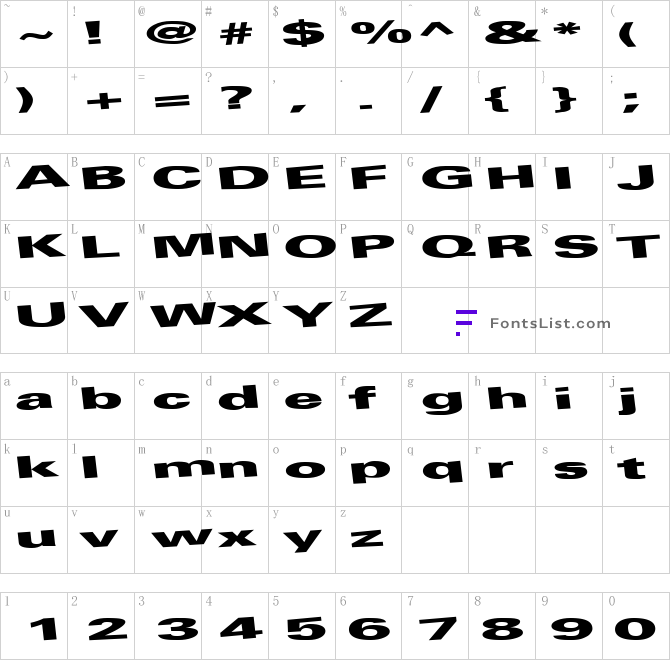
AtLeisureWorld76-Regular-ttext.ttf is a very beautiful artistic font, AtLeisureWorld76-Regular-ttext.ttf is widely used in the design and printing of various books and pictures,AtLeisureWorld76-Regular-ttext.ttf has a strong visual impact,AtLeisureWorld76-Regular-ttext.ttf is a commonly used font in newspapers, magazines and books, and is used in posters, e-commerce Poster design, store design, logo design, font design and other fields.AtLeisureWorld76-Regular-ttext.